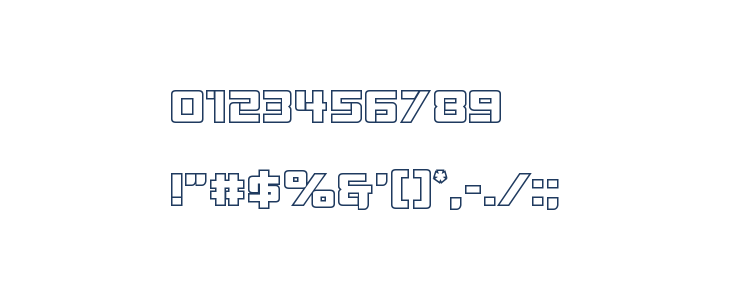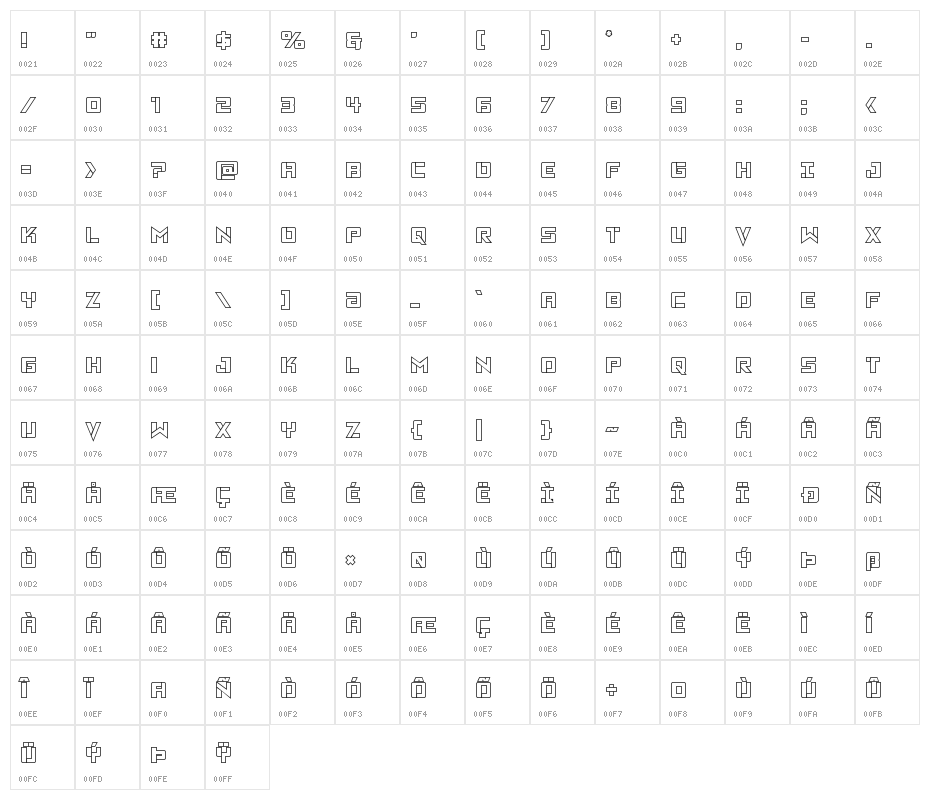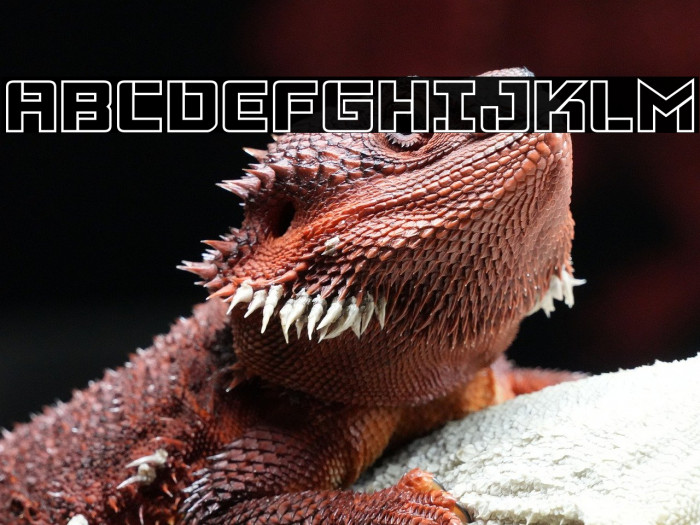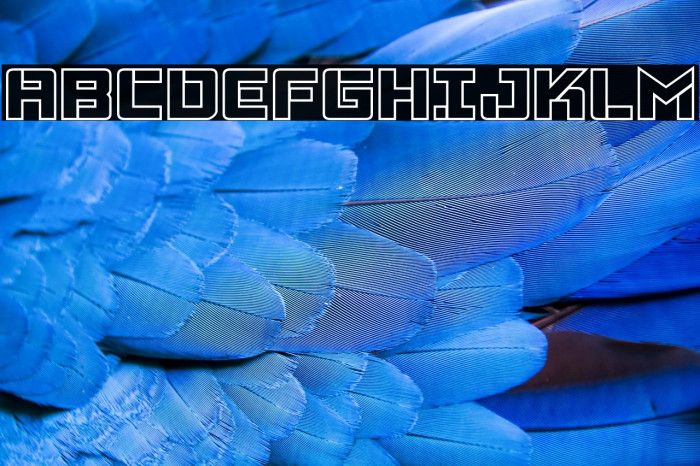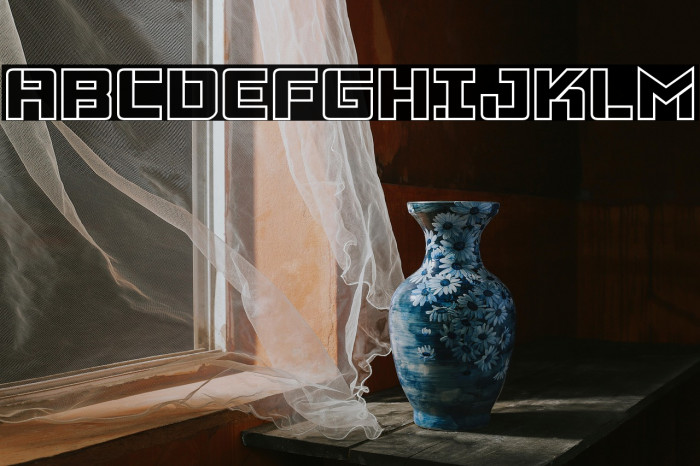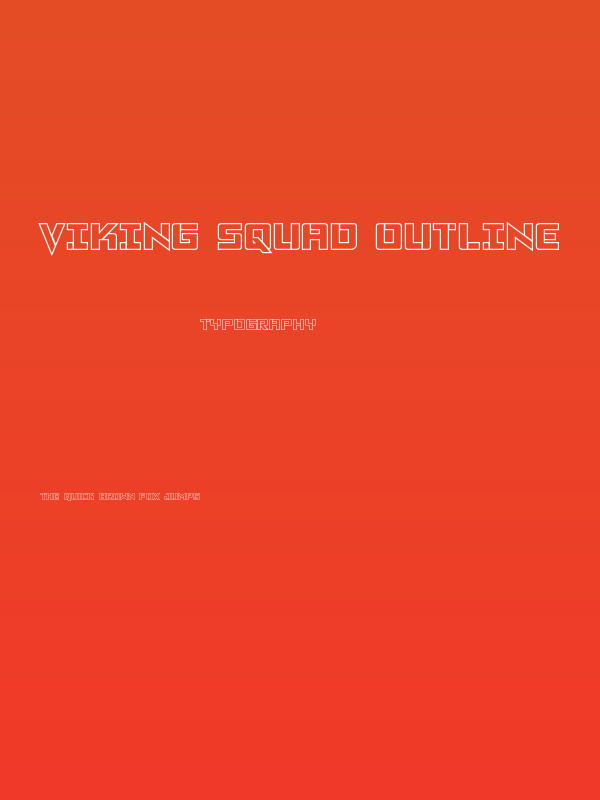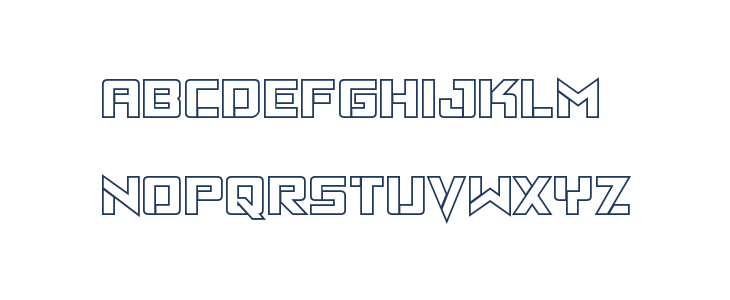
Viking Squad Outline Font
Viking Squad Outline Description
This font features a bold, geometric outline style with a futuristic and angular design. Each character is constructed with sharp, clean lines and a consistent thickness, creating a uniform appearance across all letters and numbers. The uppercase and lowercase letters share a similar structure, emphasizing a cohesive look. The font's outline nature gives it a hollow appearance, making it ideal for designs that require a modern and edgy aesthetic. The special characters maintain the same geometric style, ensuring visual consistency throughout. This font is particularly suited for projects that aim to capture attention with its striking and unique design.
| Proposed Projects | Ideal for logos, posters, video game graphics, and any project requiring a modern, eye-catching typeface. |